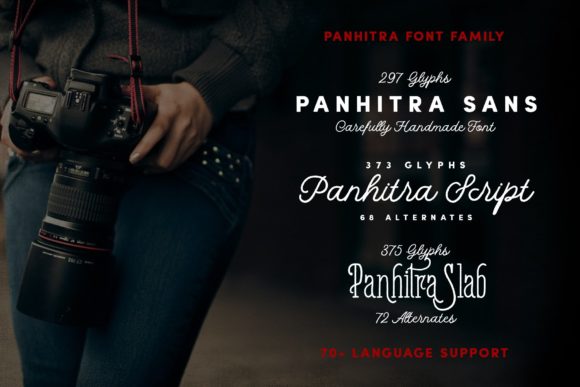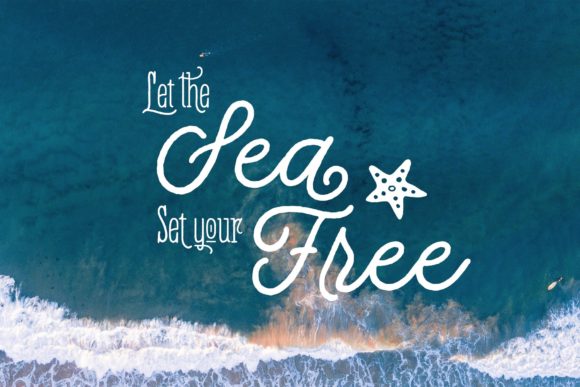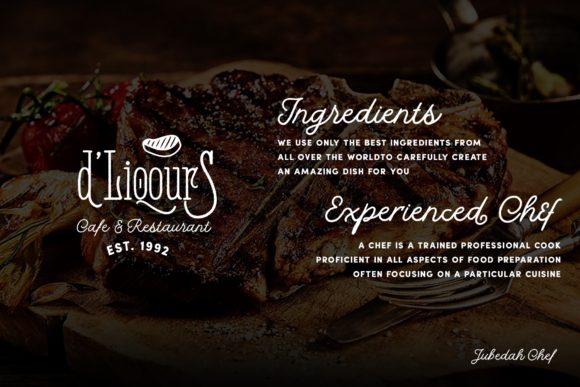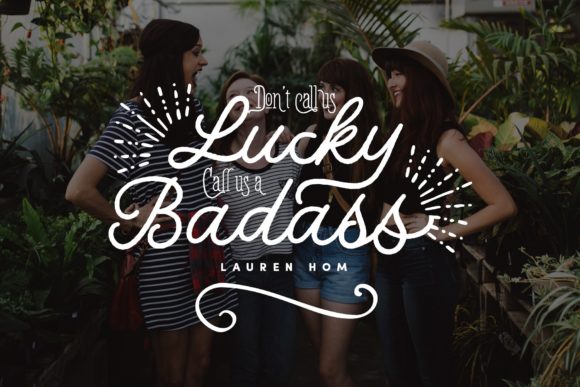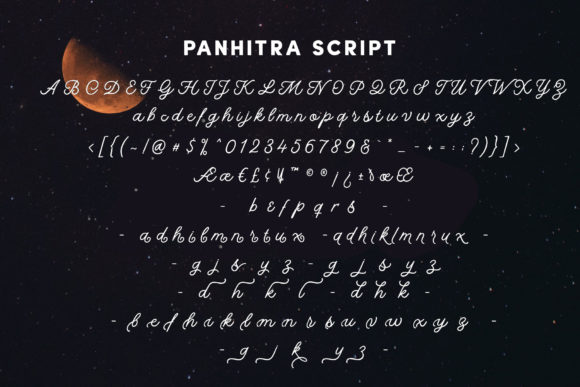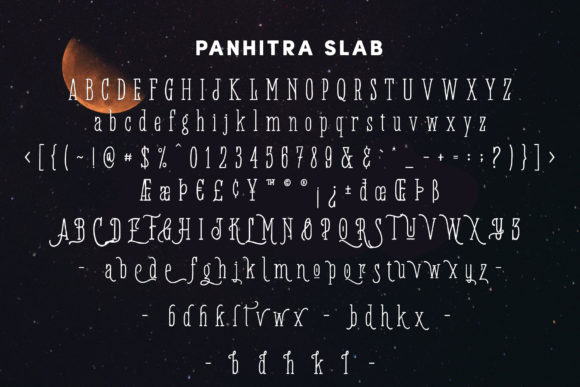
Introduction to Panhitra Family Font
Panhitra is a stunning handwritten font with an elegant charm.
It will turn any design project into a true stand out .
Key Features of Panhitra Family Font
Why Choose Panhitra Family Font?
Panhitra Family Font offers exceptional quality and versatility, making it a valuable addition to your design toolkit. Whether you’re creating for personal projects or commercial use, Panhitra Family Font delivers professional results.